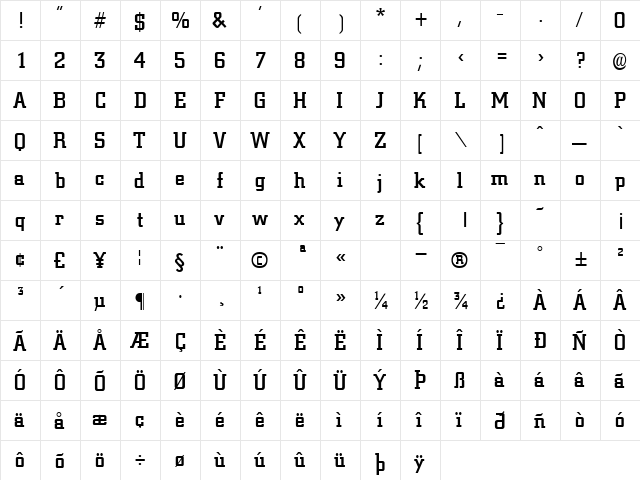
GE Civilized Bold
Design Context for GE Civilized Typeface
GE Civilized takes a measured approach to typography — its balanced proportions and neutral character make it a reliable workhorse for both digital and print work. The heavy weight commands attention and anchors typographic hierarchies.